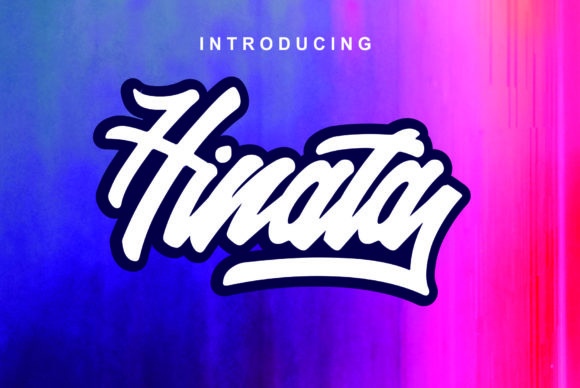
Hinata Font
Hinata Font is perfect for Japanese restaurant branding, anime merchandise designs, manga publication layouts, cultural event invitations, zen garden signage, traditional tea ceremony materials, martial arts dojo logos, Japanese-inspired fashion brands, cherry blossom festival promotions, and authentic Asian cuisine packaging.
What makes Hinata Font so exciting is its extraordinary ability to capture the gentle warmth and serene beauty of Japanese culture through letterforms that seem to glow with the soft radiance of morning sunlight. This enchanting typeface draws inspiration from the Japanese concept of "hinata," meaning sunny place, featuring characters that embody the peaceful harmony and natural elegance found in traditional Japanese aesthetics. The font's graceful design elements perfectly balance strength with delicacy, creating a versatile tool that communicates both cultural authenticity and contemporary appeal, making it an essential choice for projects celebrating Japanese heritage and philosophy.
Hinata Font comes in multiple font families including Regular, Bold, Light, Italic, Bold Italic, Zen, Brush, and Traditional variations. Each family member maintains the core Japanese-inspired characteristics while offering different elegance levels and stylistic approaches to suit various cultural design requirements.
The Hinata Font Free Download provides designers with an exceptional resource for creating authentic materials that honor Japanese culture while appealing to modern global audiences. This remarkable typeface distinguishes itself through its unique ability to communicate themes of harmony, natural beauty, and cultural respect. Whether you're developing Japanese brand identities, creating cultural celebration materials, or designing anime-inspired products, this font ensures your message radiates the warmth and tranquility that Japanese aesthetics represent.
The mindful balance in Hinata Font makes it particularly suitable for businesses and organizations celebrating Japanese culture, where authenticity and respectful representation are paramount. Its harmonious letterforms maintain excellent readability while preserving the cultural sensitivity that appeals to audiences seeking genuine cultural experiences and respectful cultural appreciation.
Cultural design professionals appreciate how Hinata Font transforms ordinary text into respectful celebrations of Japanese heritage and philosophy. The typeface's thoughtful character set includes culturally appropriate symbols and decorative elements that enhance the overall Japanese atmosphere of any design project.
For creative professionals serving Japanese restaurants, cultural organizations, and anime entertainment brands, Hinata Font serves as the perfect foundation for establishing memorable visual identities that capture the timeless beauty and peaceful wisdom of Japanese culture while resonating with contemporary audiences worldwide.